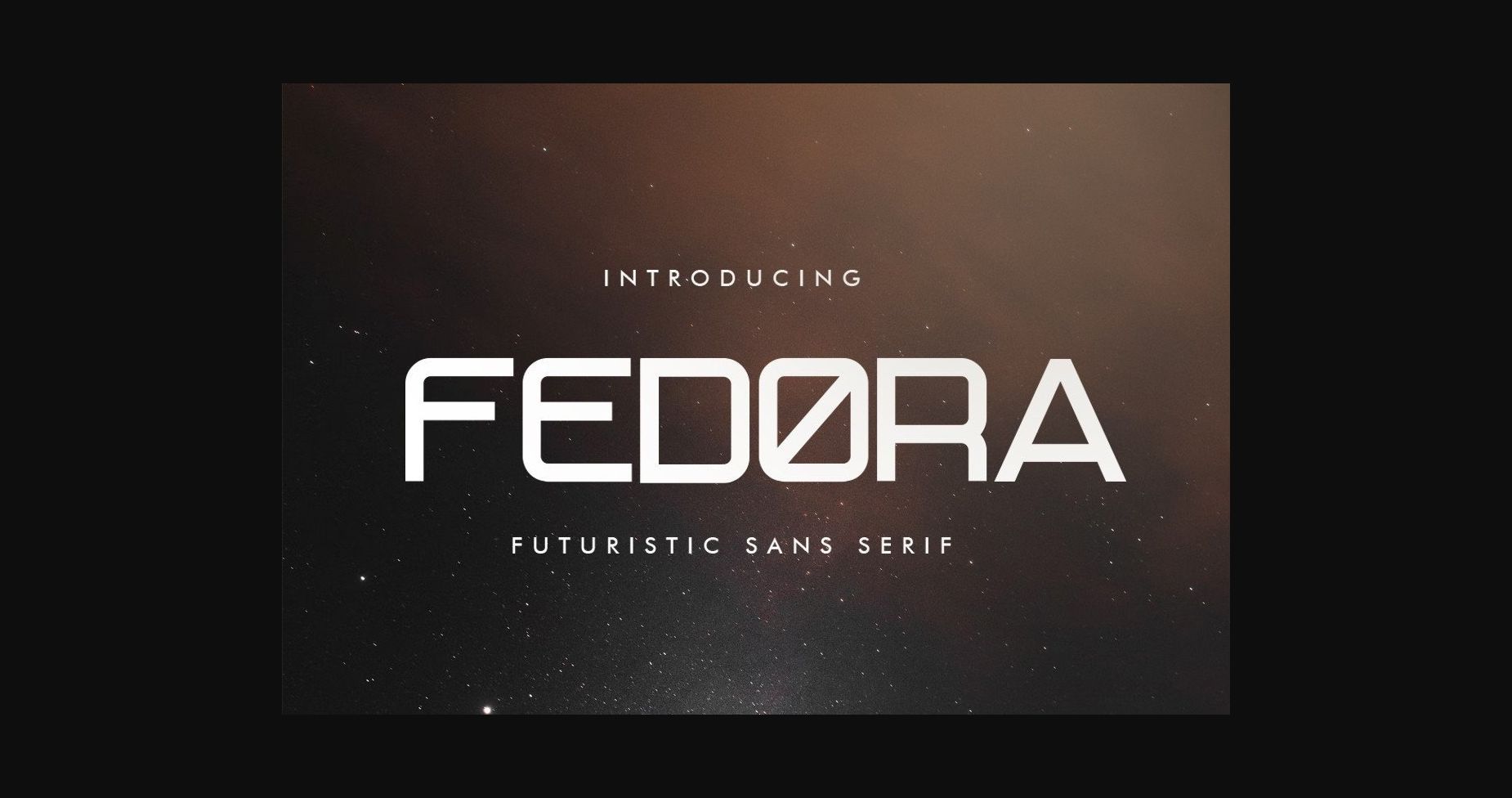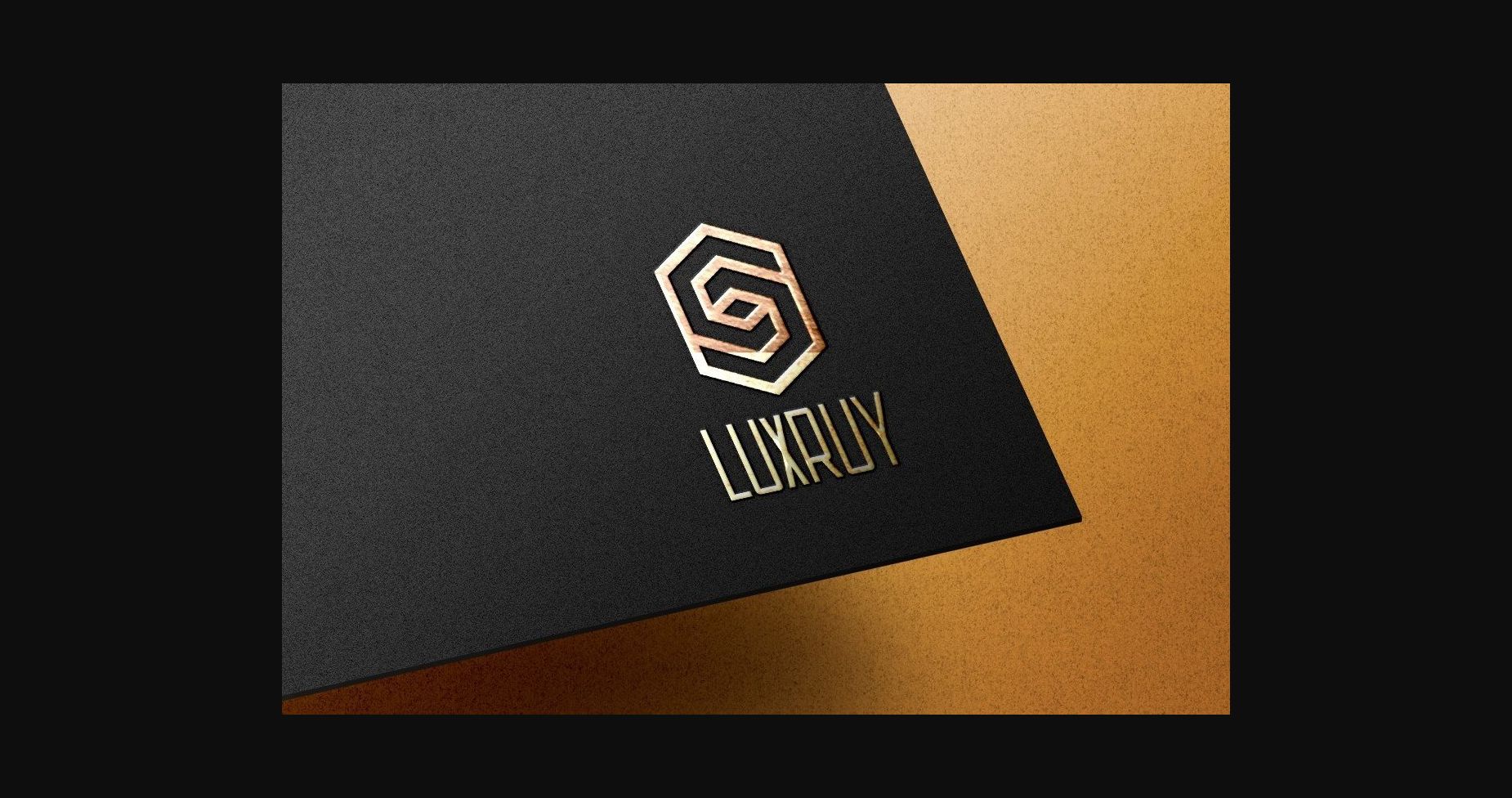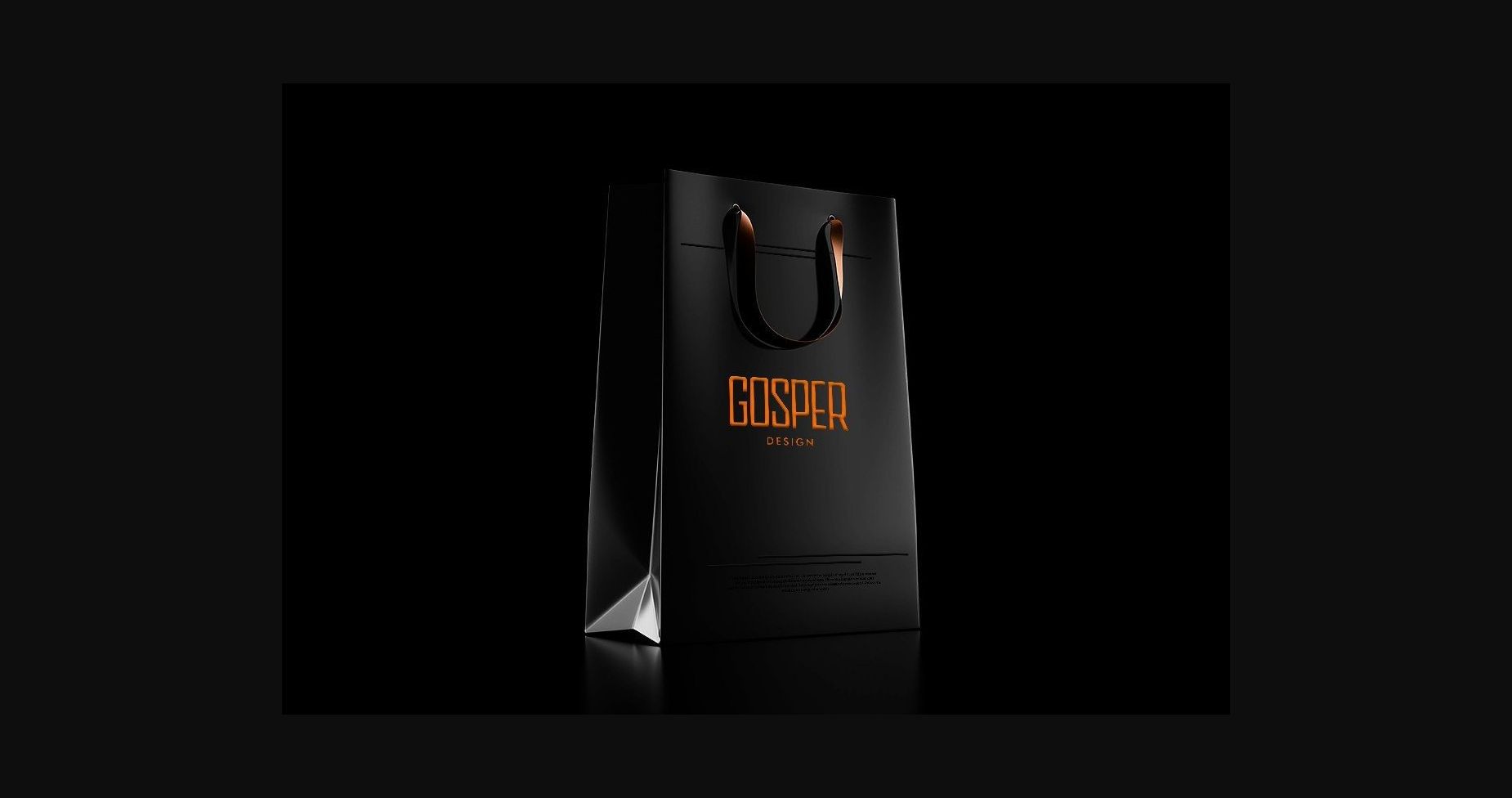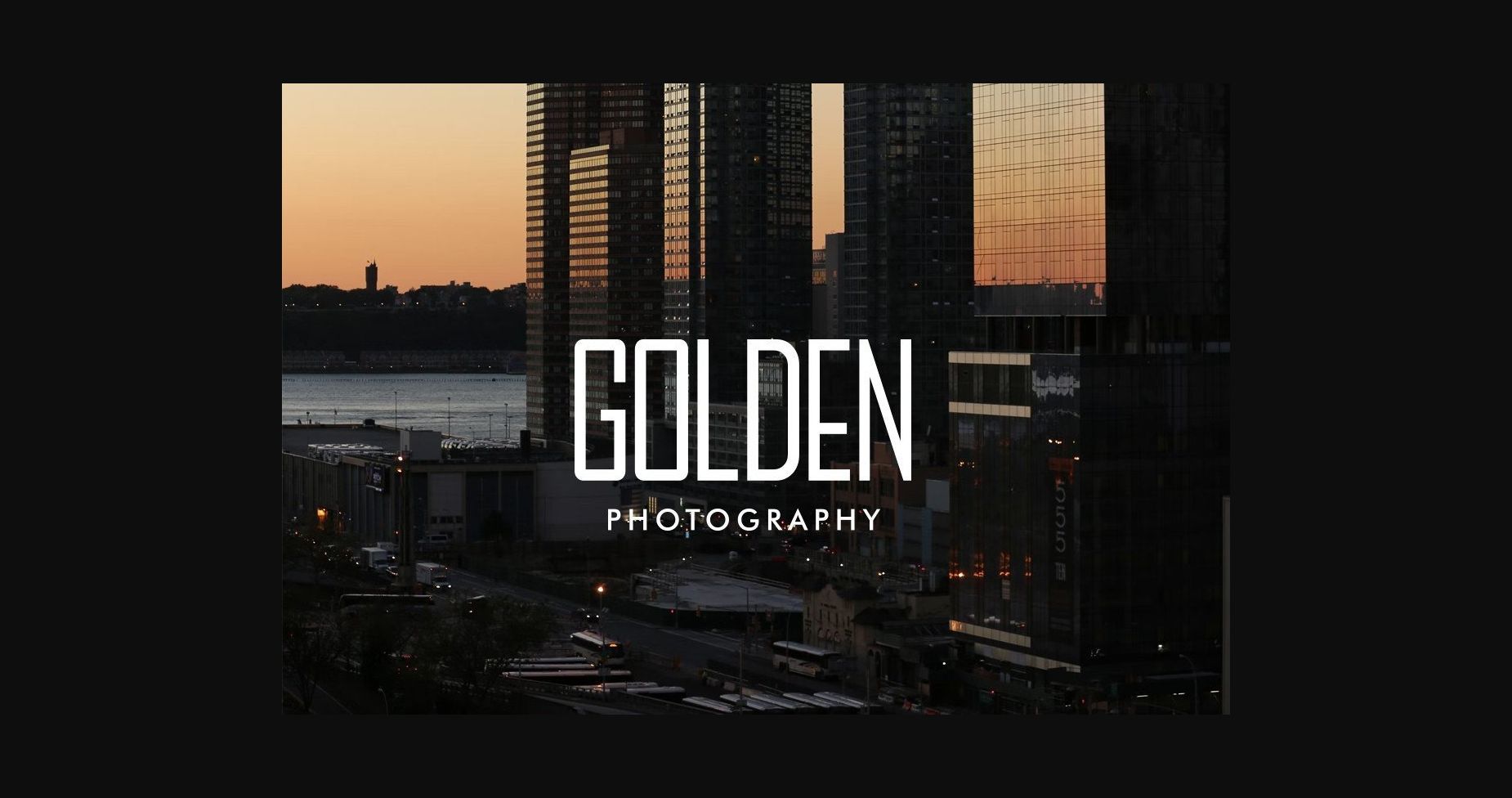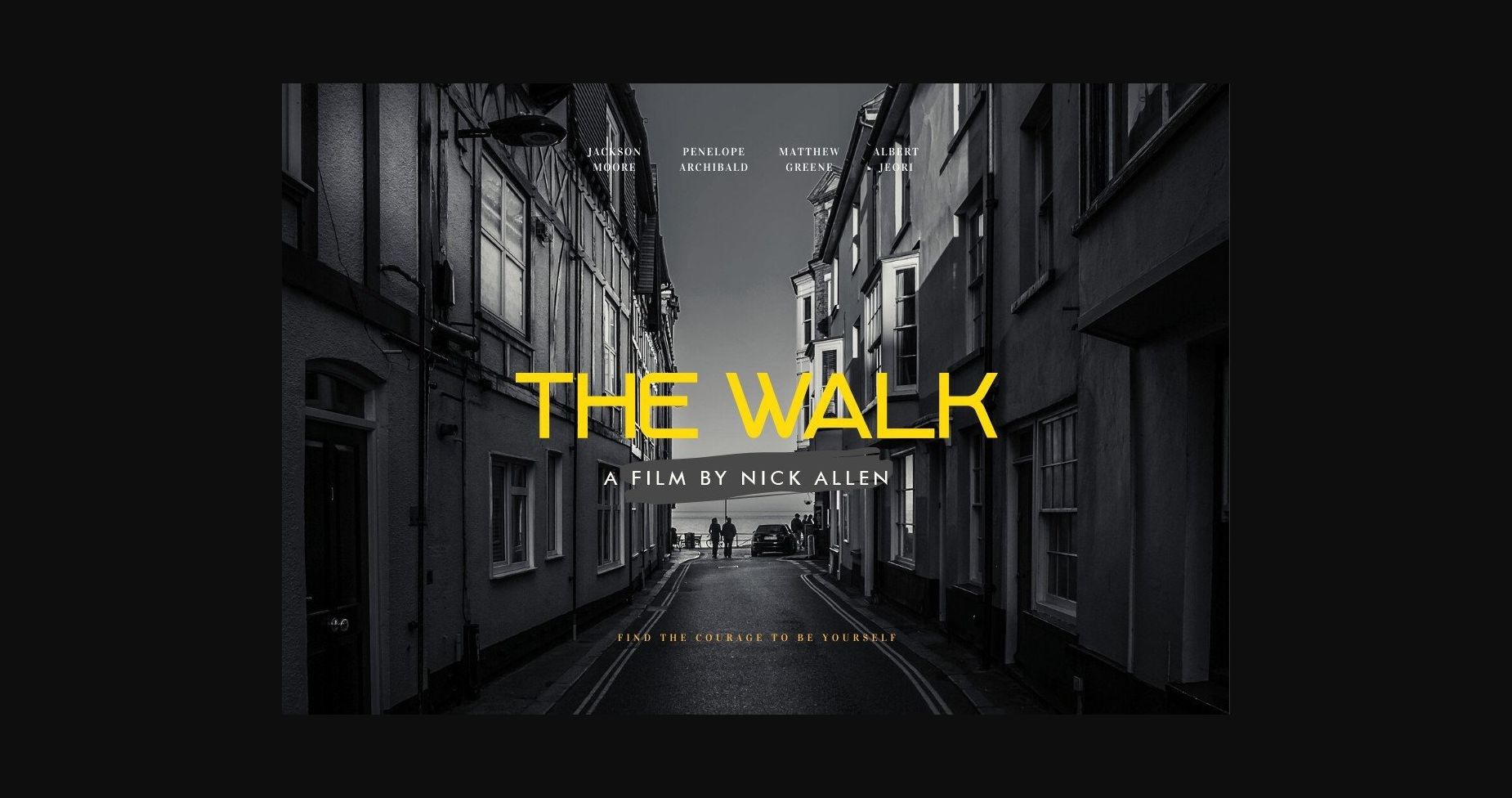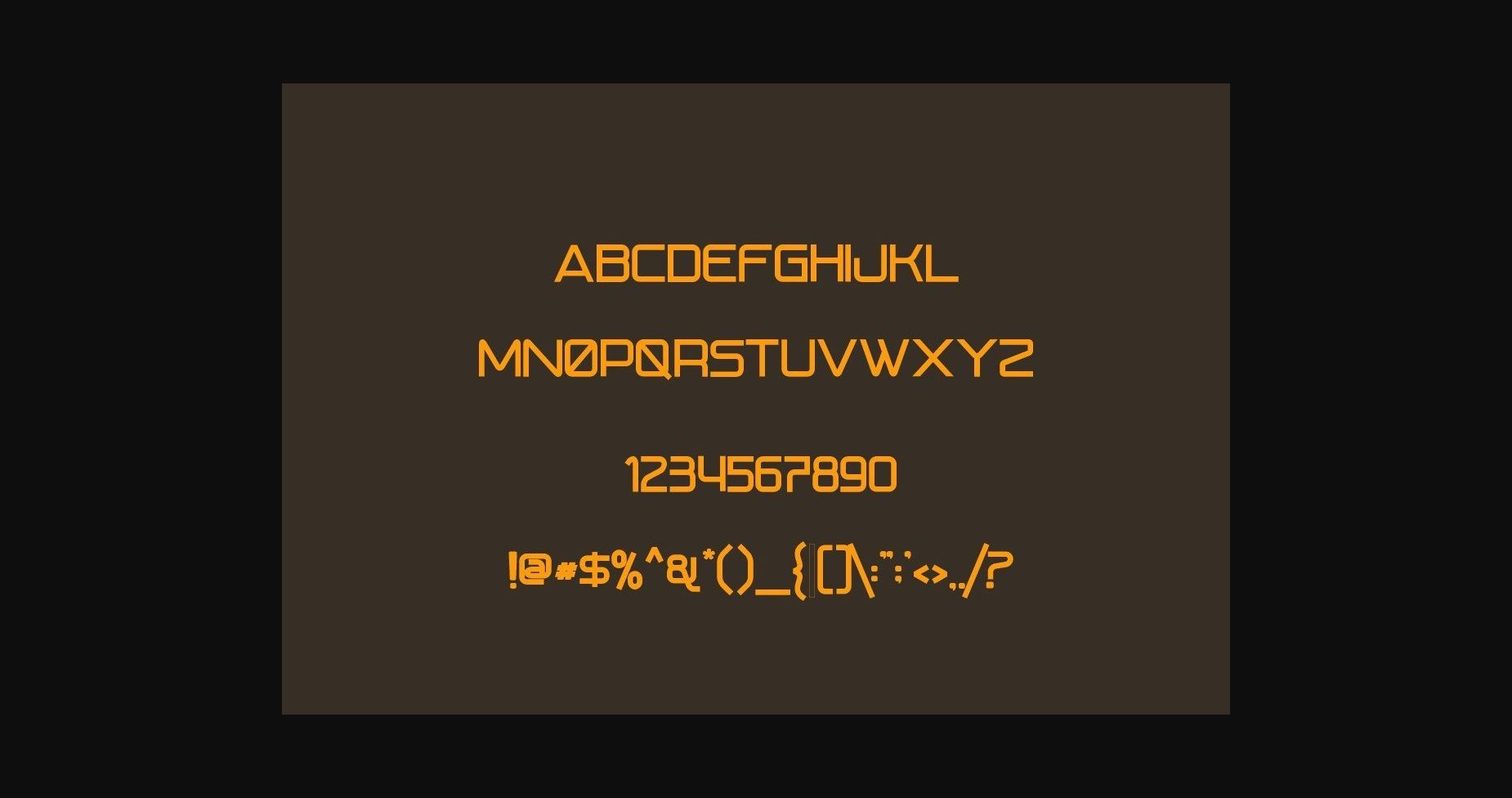
About Fedora Font
Fedora is a sans-based font with unique lowercase that will make your design looks futuristic and modern. You can use this font for any purpose, especially to make logotypes.